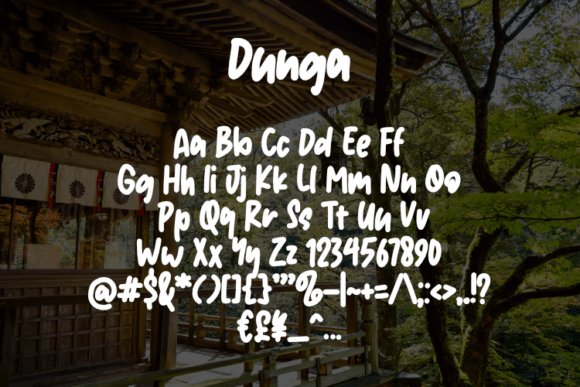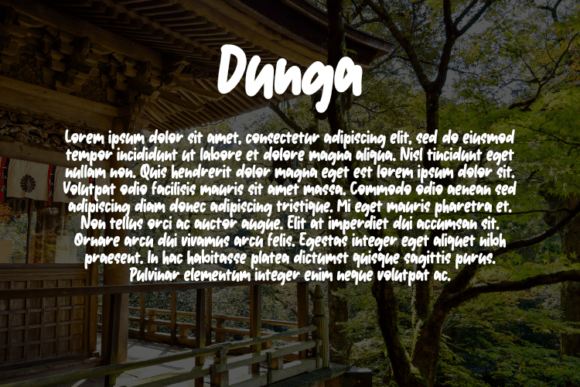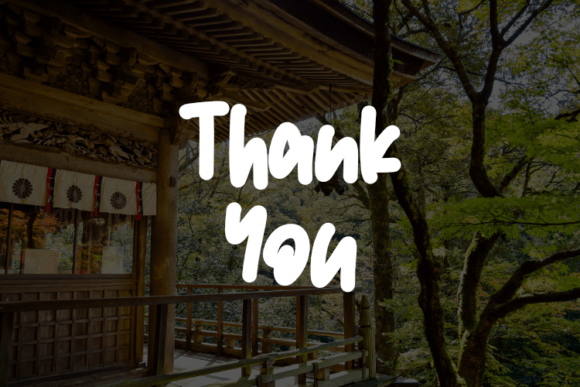
Dunga Font: Elevate Your Designs with Elegance and Readability
In the realm of typography, a font can make or break a design. For designers and crafters seeking a modern, elegant, and highly readable typeface, Dunga Font stands out as an exceptional choice. This versatile font is meticulously crafted to ensure excellent readability across various media, making it a valuable asset for any creative project.
Introduction to Dunga Font
Dunga is a contemporary typeface designed with flexibility in mind. Its clean lines, balanced strokes, and sophisticated style make it an ideal choice for a wide range of applications, from digital media to print. Whether you’re working on a branding project, website design, or crafting beautiful text for social media, Dunga Font offers the elegance and clarity needed to elevate your work.
Key Features of Dunga Font
• Modern and Elegant Design: Dunga boasts a sleek, modern aesthetic that adds a touch of sophistication to any design.
• Excellent Readability: The font’s design prioritizes readability, ensuring that your text is clear and easily readable across different devices and media.
Advantages for Designers and Crafters
Dunga Font offers numerous benefits for designers and crafters looking to enhance their projects with high-quality typography.
• Enhanced Creativity: The elegant design of Dunga opens up new creative possibilities, allowing you to experiment with various design elements and typography styles.
• Professional Finish: Incorporating Dunga Font into your projects gives them a professional and polished look, helping you stand out in a crowded creative landscape.
Use Cases for Dunga Font
The versatility of Dunga Font makes it suitable for a myriad of applications.
• Branding and Logo Design: Use Dunga to create a lasting impression with elegant and memorable brand names and taglines.
• Website Design: Enhance user experience with clear, readable text that doesn’t compromise on style.
• Print Materials: From brochures and business cards to posters and flyers, Dunga adds a touch of elegance to any print material.
• Social Media Graphics: Stand out on social media with beautifully crafted text that captures attention and communicates your message effectively.
Dunga Font is a powerful tool for designers and crafters aiming to elevate their projects with a modern, elegant, and highly readable typeface. Its .otf file format ensures compatibility across a wide range of software, making it a versatile and practical choice for various creative endeavors. By incorporating Dunga Font into your design workflow, you can achieve professional-looking results with less hassle and more creativity. Whether you’re working on digital projects, print materials, or anything in between, Dunga Font is poised to become your go-to typeface for all your typography needs.